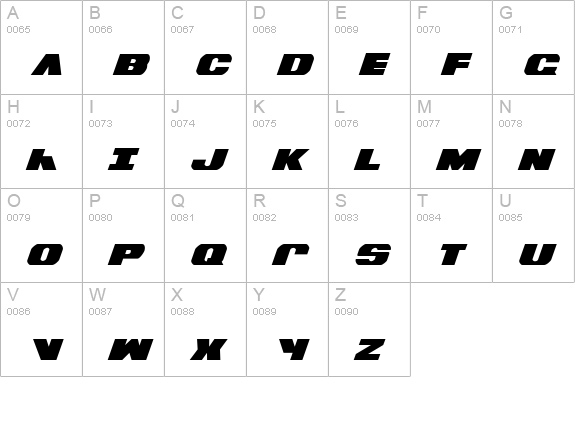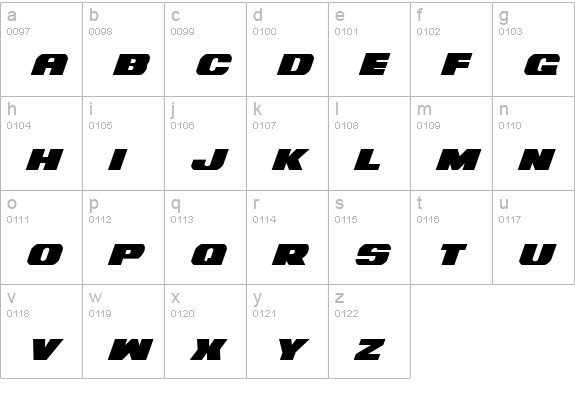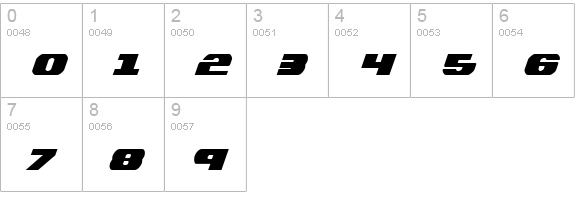
Bummer Italic is a distinctive, italic variant in the Bummer typeface family \xE2\x80\x94 well suited to design and typography projects.
Bummer Italic font is a playful and quirky typeface that exudes a sense of whimsy and charm. Its slanted and slightly off-kilter design gives it a unique and eye-catching appeal, making it perfect for adding a touch of personality to your projects. The fluid strokes and uneven letterforms create a dynamic and lively look that is sure to stand out. What's even better is that Bummer Italic font is available for free download at FontsMarket.com. This means you can easily access this delightful font and use it in your designs without any cost. Whether you're working on a creative project, branding materials, or just want to add a fun twist to your text, Bummer Italic font is a fantastic choice that won't break the bank. Download it today and let your creativity shine with this charming and free typeface.